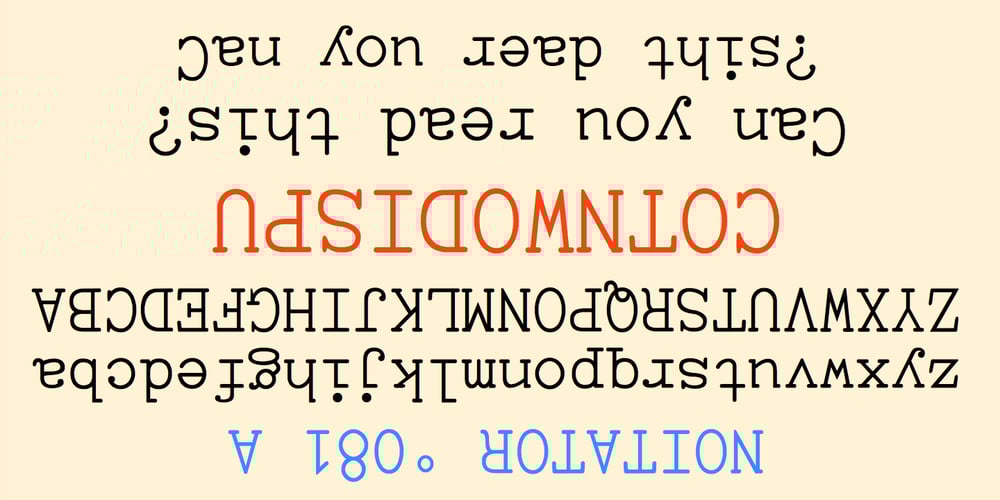
UpsidedownTOC Font Family was designed by Robert Schenk and published by Ingrimayne Type. UpsidedownTOC contains 1 styles and family package options. Have you ever wanted to print text upside down? There is, or course, software the lets you rotate text, but another way is to use an upside-down font like UpsidedownTOC. Notice that to use it to get upside-down printing, you must type in the words backwards. UpsidedownTOC is derived from the font TiredOfCourier.